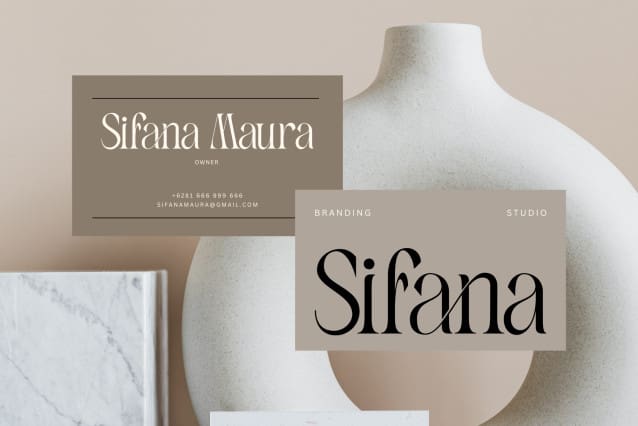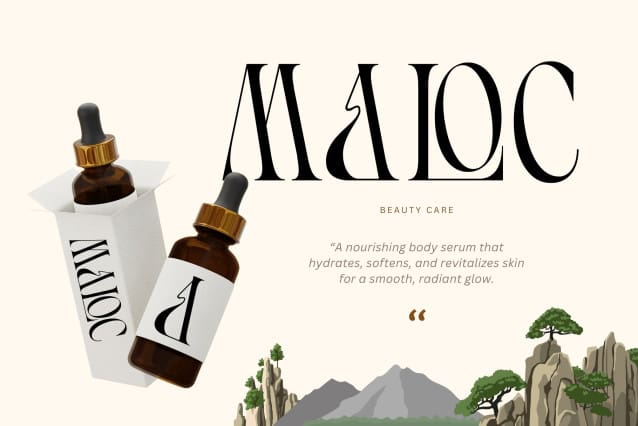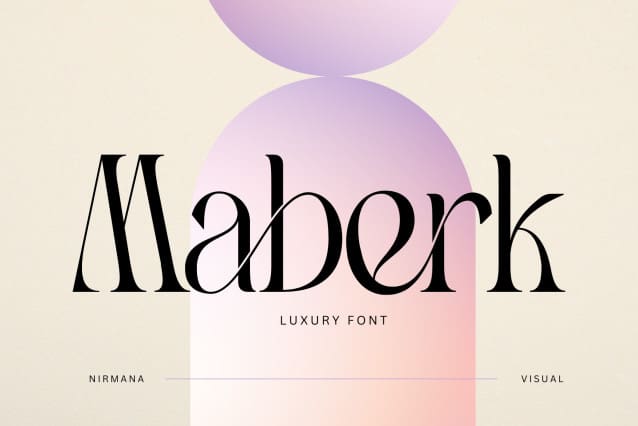
Maberk Font
Maberk Font offers beautiful typographic harmony for a diversity of design projects, including logos & branding, social media posts, advertisements & product designs.